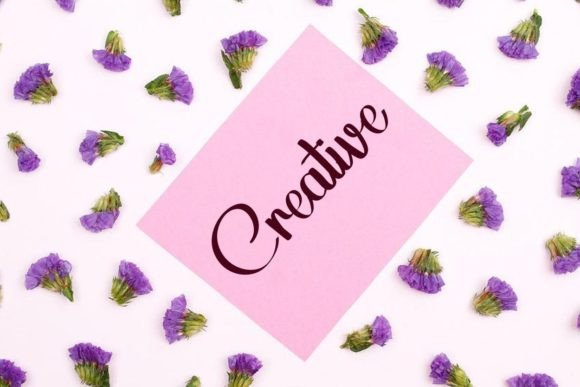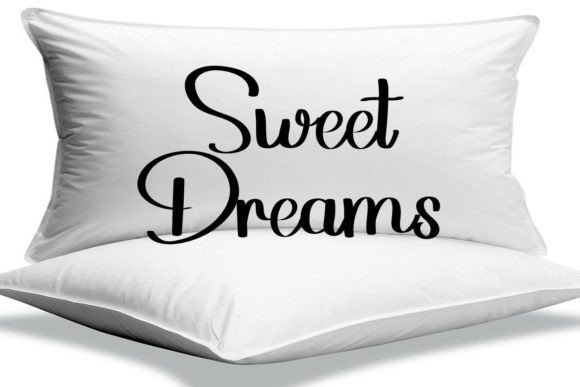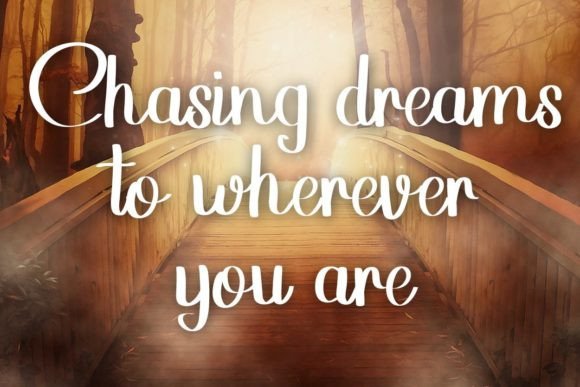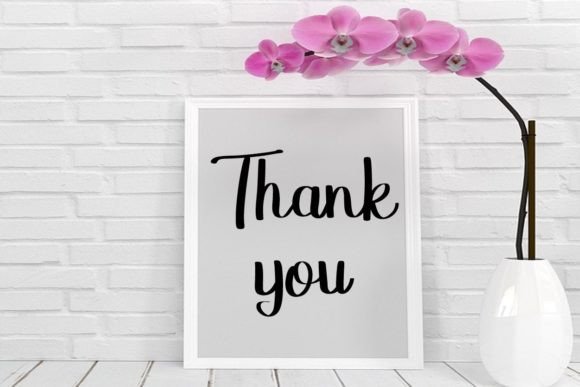
Have you ever been stuck in front of your computer screen, staring at a blank canvas, waiting for inspiration to strike? I know I have. It’s those moments when you’re searching for the perfect font to bring your design to life that can be the most frustrating. But what if I told you that you might be overlooking something truly special? Introducing the Dellon Font, a beautiful, handwritten script that’s perfect for adding a touch of elegance to your designs.
This versatile font is ideal for a wide range of projects, from YouTube banners and covers to logos, mockups, and wedding invitations. What sets it apart, however, is its ability to elevate your designs and take your business to the next level. By adding the Dellon Font to your toolkit, you’ll be able to create stunning visual content that captures the attention of your audience and sets you apart from the competition.
Dellon Font Key Features
- Resolution: High-resolution fonts suitable for print and web use
- Unique Characteristics: Hand-drawn, elegant script font with a personal touch, ideal for invitations, wedding stationery, and other special occasions
- Font Style: Script, Calligraphy
- Language Support: Latin-based languages, including English, Spanish, French, German, Italian, and many others
Dellon Font Review
As a designer, I was excited to try out the Dellon Font, but my experience was a mixed bag.
- Unique and Creative Design: The Dellon Font has a distinctive and playful style that can add a touch of whimsy to any project.
- Wide Character Set: The font has a large character set, including accented letters and punctuation marks, making it suitable for a variety of languages.
- High-Quality Vectors: The font’s vectors are crisp and clean, making it perfect for large-scale designs.
- Limited Font Weight Options: The Dellon Font has a limited range of font weights, which can make it difficult to achieve the desired level of boldness or subtlety.
- Lack of Italic and Oblique Styles: The font does not have italic or oblique styles, which can limit its versatility in certain design contexts.
- Not Ideal for Body Text: Due to its playful and decorative nature, the Dellon Font may not be the best choice for body text or long blocks of text.
Overall, the Dellon Font is a great choice for designers looking for a unique and creative font for headings, titles, or other design elements where a playful touch is desired.
Getting the Most Out of Dellon Font
Here are some tips for getting the most out of Dellon Font:
Use Dellon Font for titles, headings, and other emphasis text to add visual interest to your designs.
Combine Dellon Font with other fonts to create a cohesive and visually appealing design.
Dellon Font is commonly used for:
Brand logos and identity design.
Print and digital advertising.
Corporate and
Alternatives to Dellon Font
Great Vibes is a beautiful script font perfect for creating a relaxed and friendly atmosphere. It’s ideal for use in branding, logos, and promotional materials where a casual, approachable tone is desired.
Compared to Dellon Font, Great Vibes has a more organic and handwritten feel, making it suitable for creative and artistic projects.
Pacifico is a stunning script font that evokes a sense of elegance and sophistication. It’s perfect for use in high-end branding, luxury packaging, and invitations where a touch of refinement is required.
Pacifico has a more refined and polished feel compared to Dellon Font, making it suitable for formal and professional projects.
Carolyna Pro is a modern script font that exudes a sense of glamour and sophistication. It’s ideal for use in fashion branding, beauty packaging, and high-end lifestyle projects where a touch of luxury is desired.
Carolyna Pro has a more contemporary and stylized feel compared to Dellon Font, making it suitable for modern and trendy projects.
Playfair Display is a luxurious script font that adds a touch of elegance and sophistication to any project. It’s perfect for use in high-end branding, luxury packaging, and invitations where a sense of refinement is required.